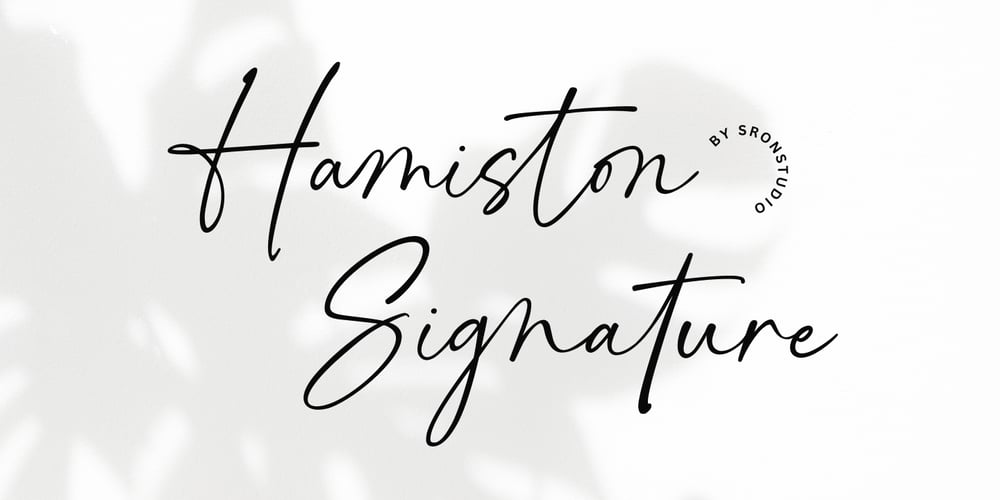
Hamiston Signature Font Family was designed by Muhamad Yusron Billah and published by Sronstudio. Hamiston Signature contains 1 styles and family package options. “Hamiston Signature” is a sophisticated script signature font that exudes elegance and class. With its smooth, flowing lines and beautifully crafted letterforms, this font captures the essence of handwritten sophistication. Perfect for personal branding, wedding invitations, luxury logos, and high-end packaging, “Hamiston Signature” brings a touch of refinement and personal charm to every project. Its natural, authentic feel makes it an excellent choice for conveying a sense of uniqueness and style.Included:- Ligatures- Numeral & Punctuation- PUA Encoded- Multilingual support- Simple Installation- Work both on Mac and WindowsThank you very much ๐